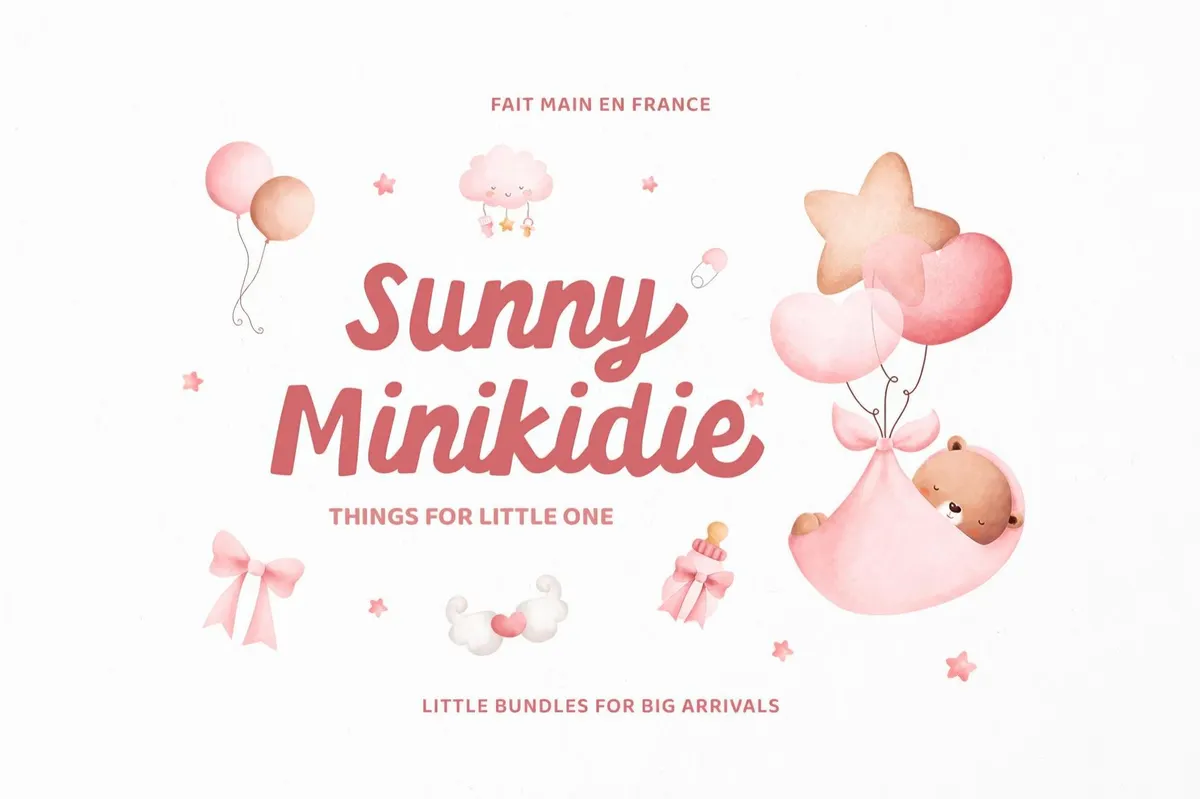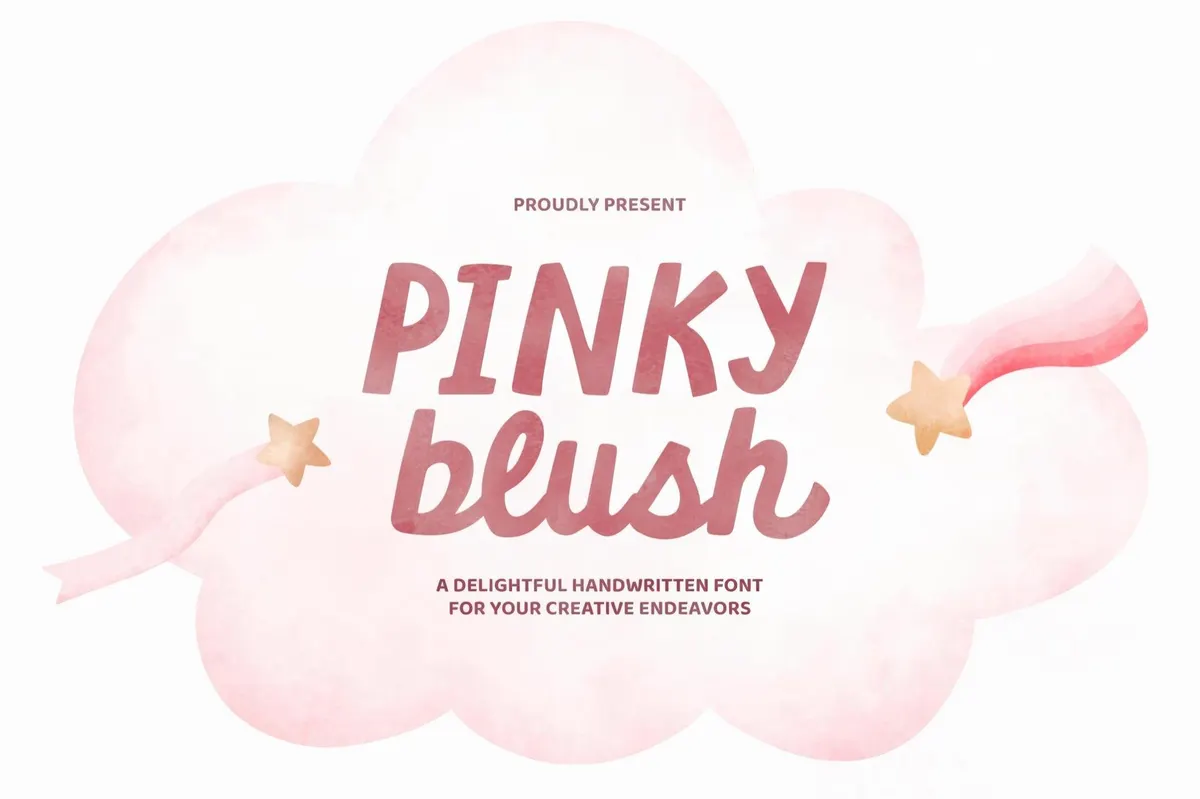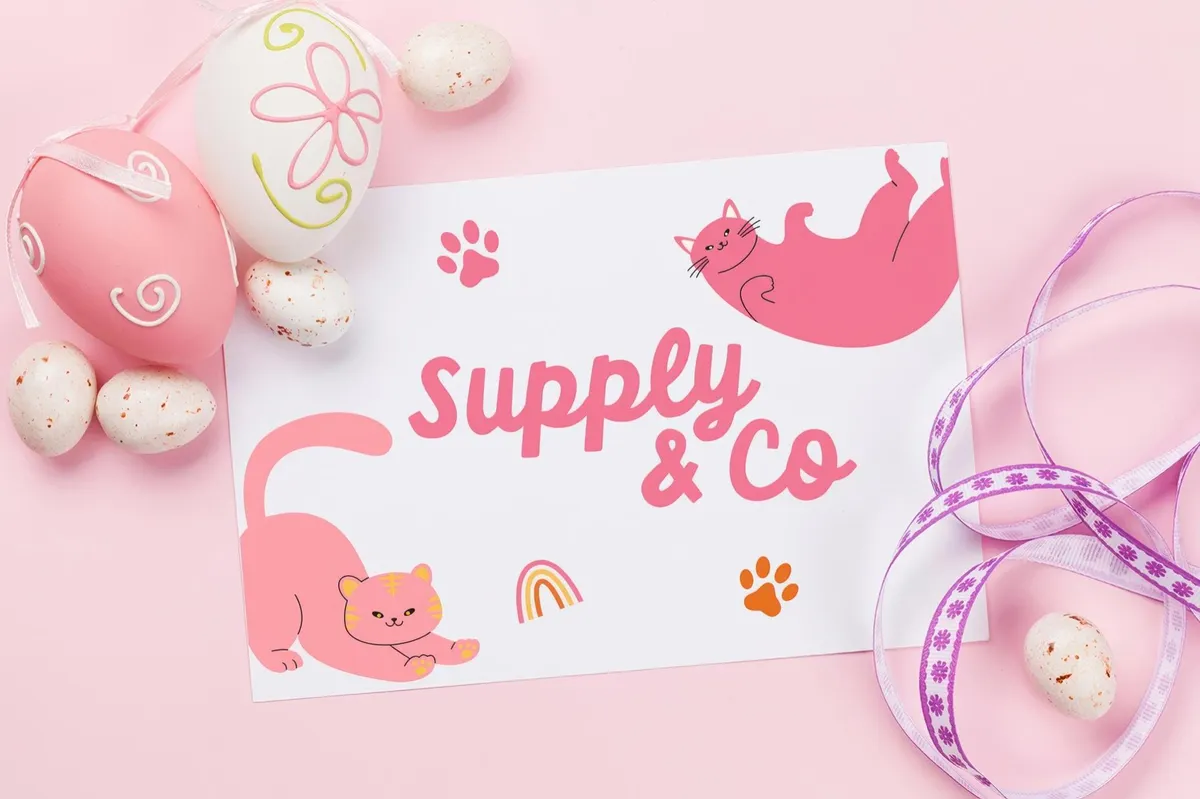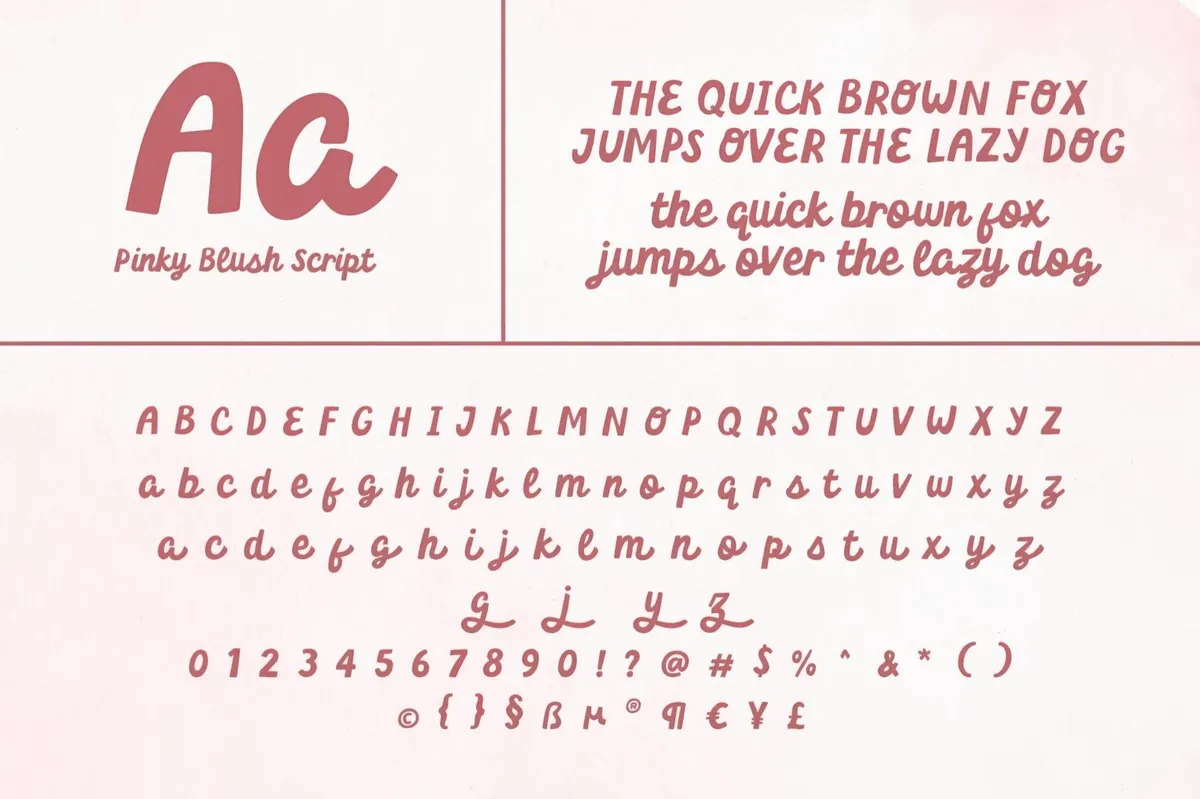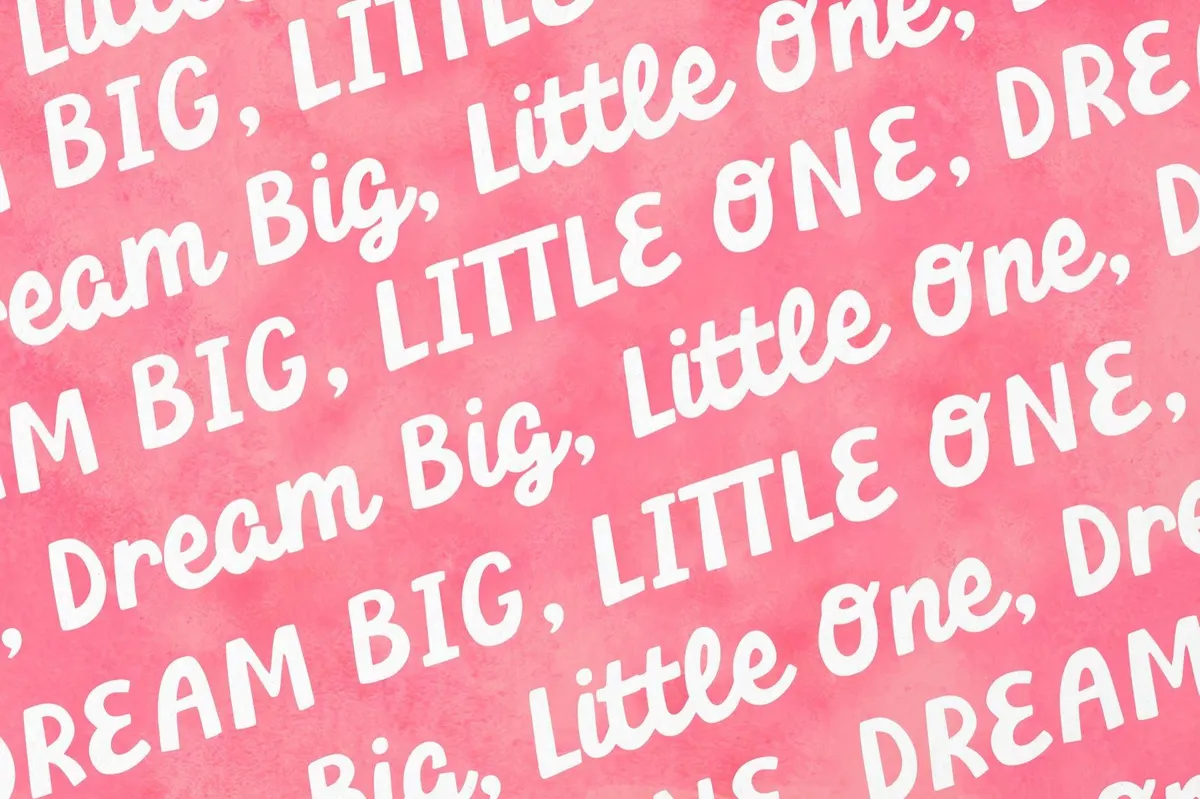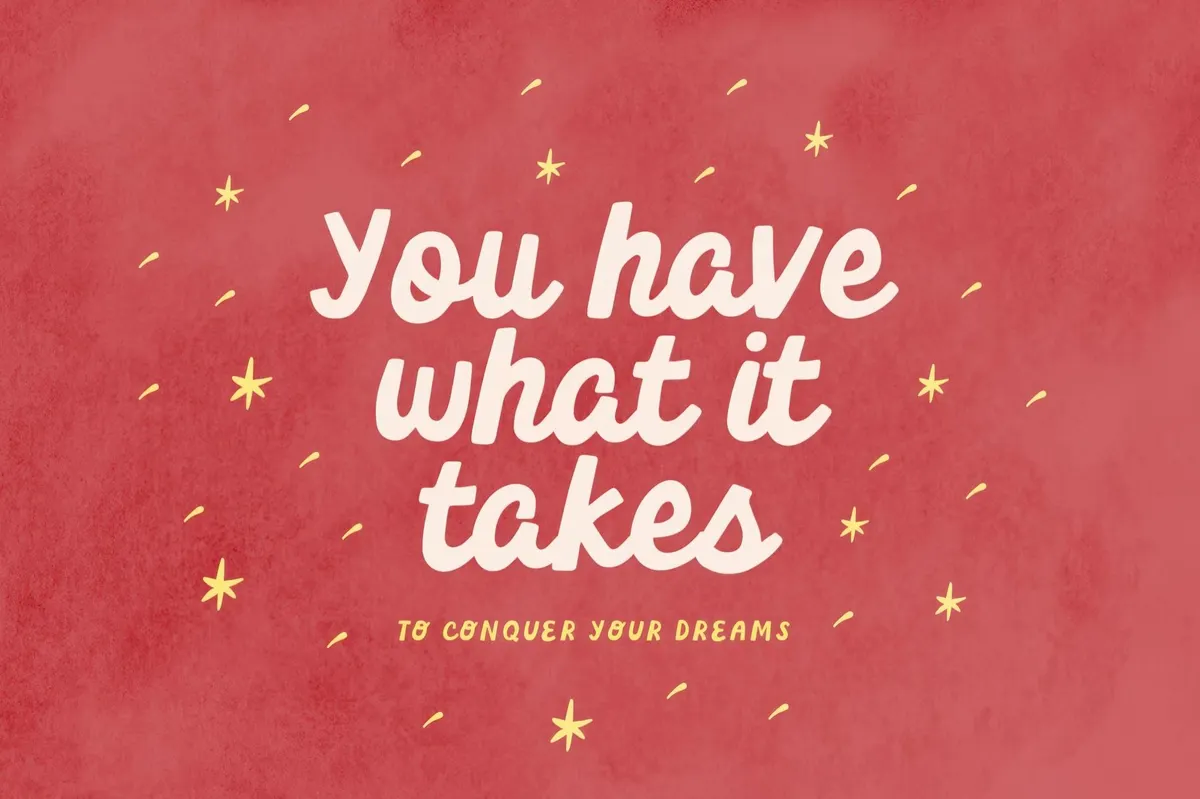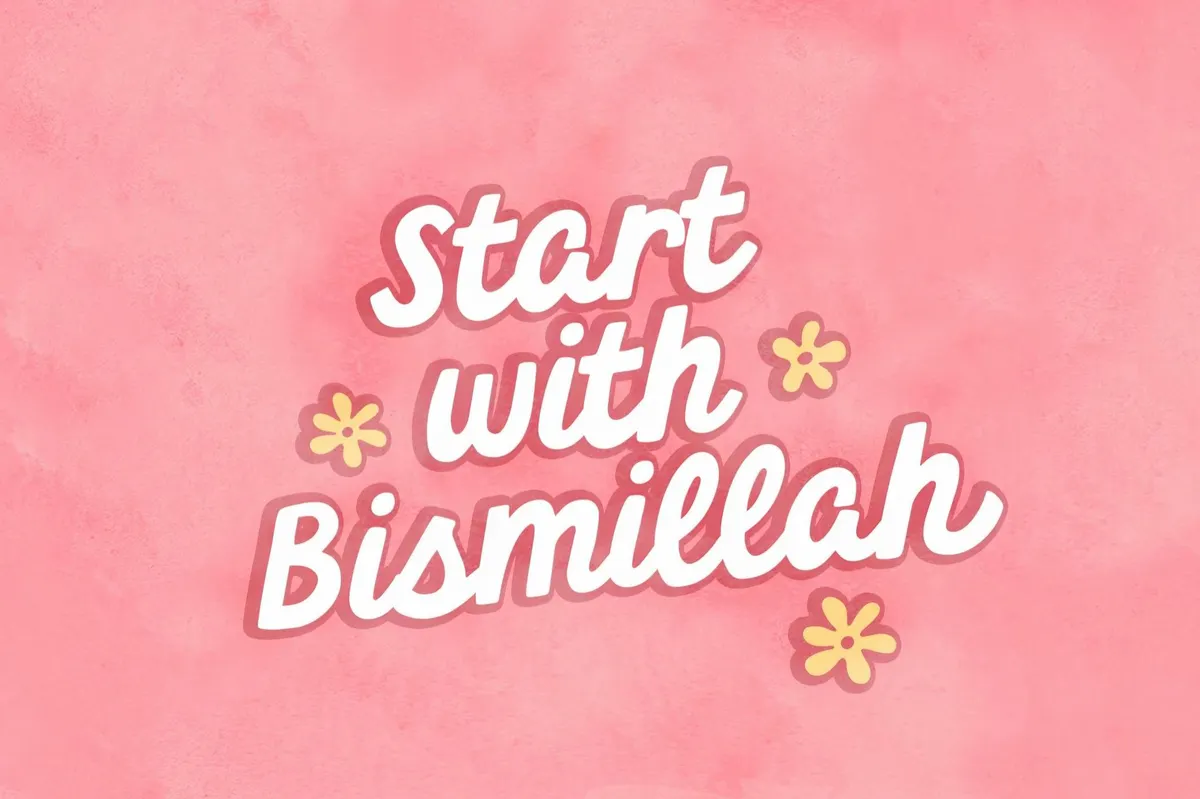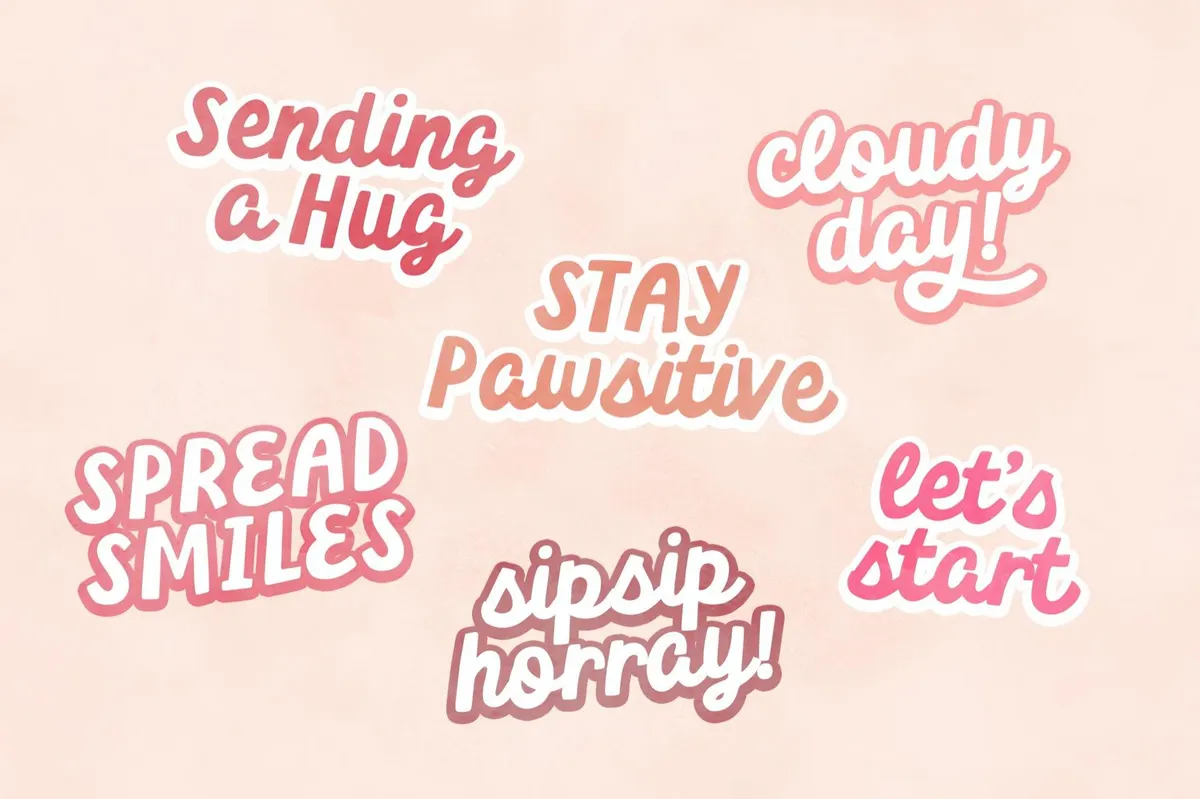
Pinky Blush — Cute Bold Script
Pinky Blush
The Pinky Blush font is as sweet as cotton candy at the amusement part. It leans into the softness with its mix of bubbly sans serif for uppercase and handwritten charm of script lowercase — making it feel like a handwritten hug of two perfectly matched fonts in one. The uppercase stands bold and breezy, while the lowercase script dances with personality. Pinky Blush is a perfect choice for children's books, headlines, branding, packaging, or greeting cards. Full multilingual support and alternate characters are the cherry on top.